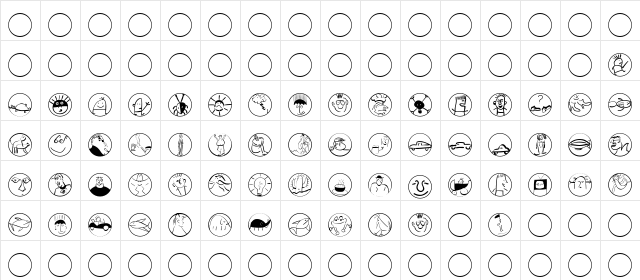
WaPicts Regular
Design Context for WaPicts Typeface
WaPicts is a composed and adaptable typeface that performs quietly and consistently across a wide range of design contexts.